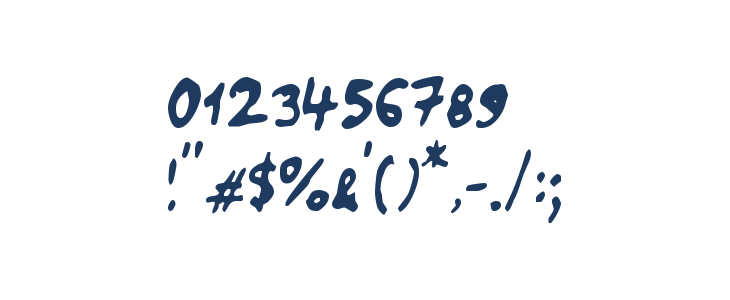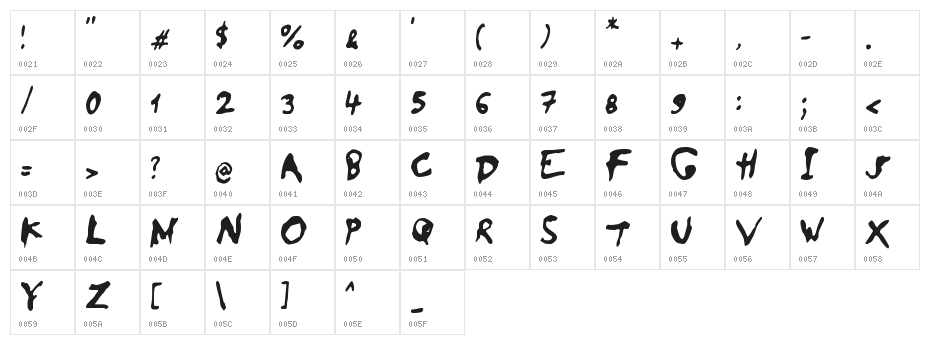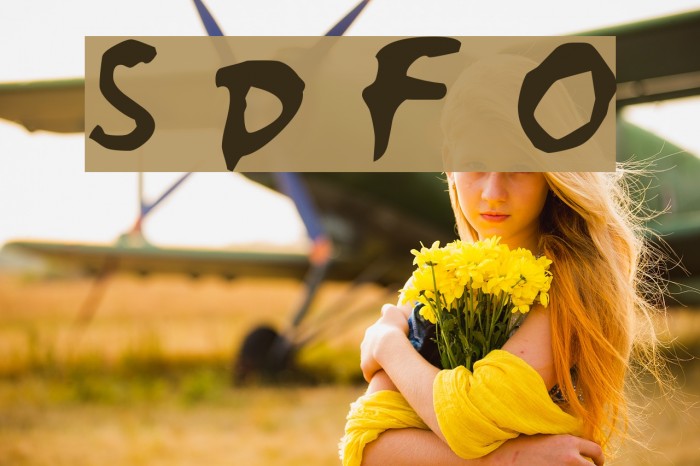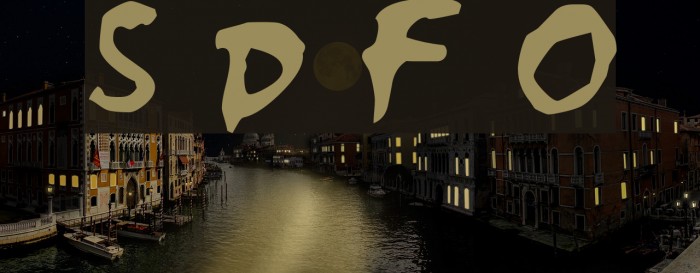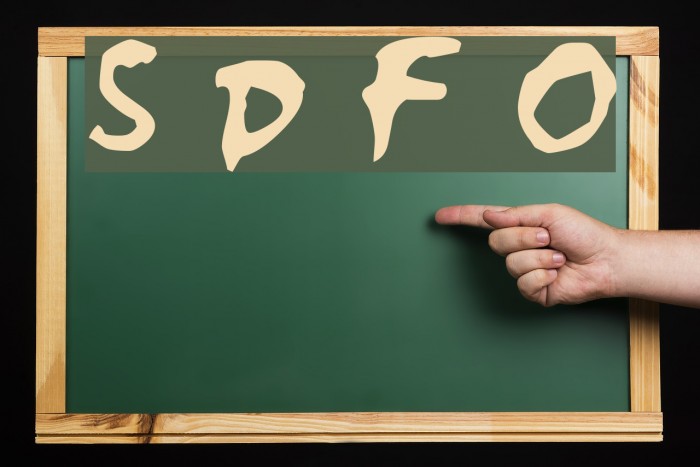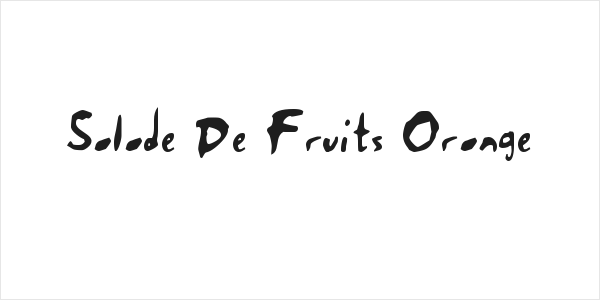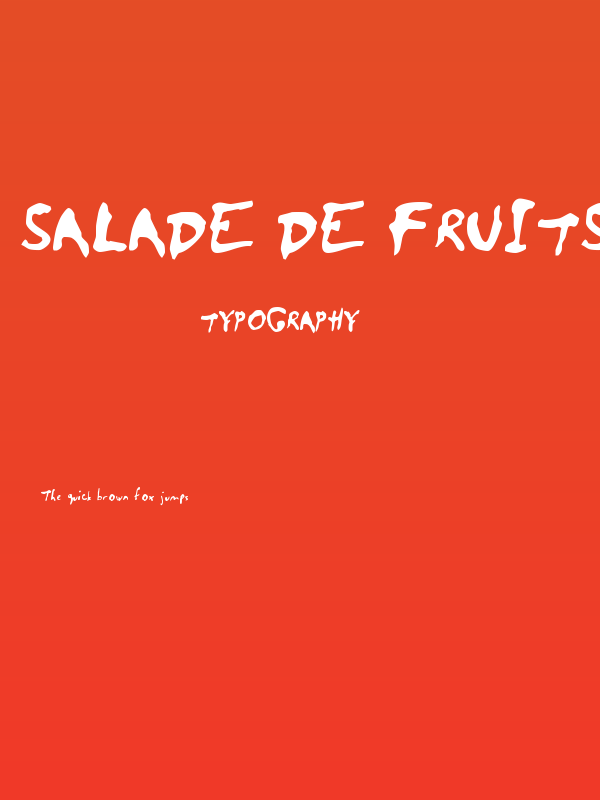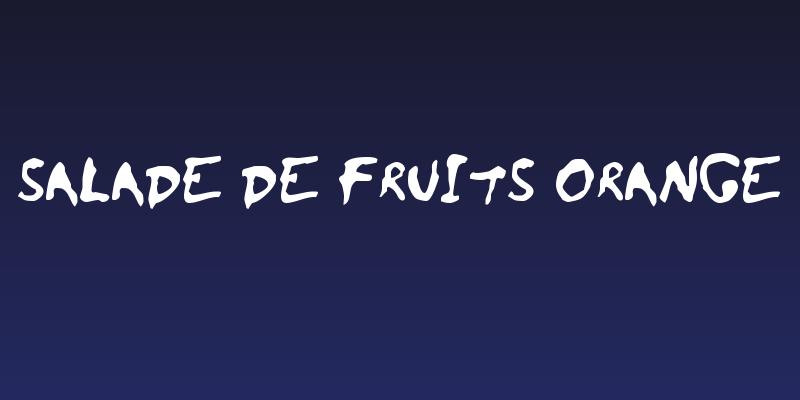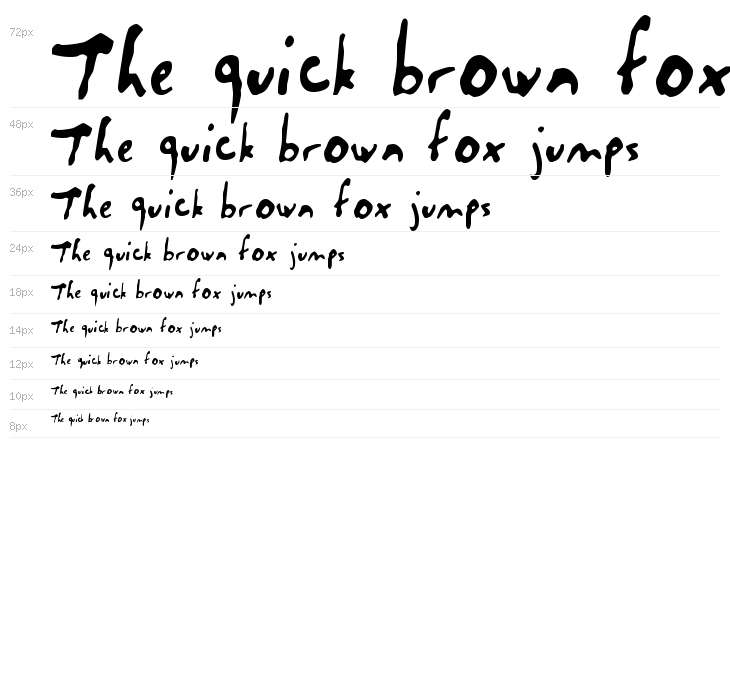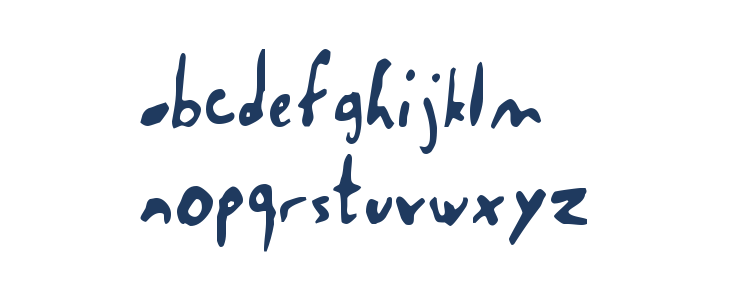
Salade De Fruits Orange Font
Salade De Fruits Orange Description
This font features a playful and organic style, reminiscent of hand-painted or brush-stroke lettering. The characters are bold and slightly irregular, giving them a lively and dynamic appearance. The uppercase letters are robust and maintain a consistent height, while the lowercase letters exhibit a more whimsical and varied structure. The numbers and special characters follow the same energetic and informal design, making the font suitable for creative and artistic projects. The overall look is both expressive and approachable, ideal for conveying a sense of fun and spontaneity.
| Proposed Projects | Ideal for children's book covers, playful branding, event posters, or any project requiring a lively and informal touch. |